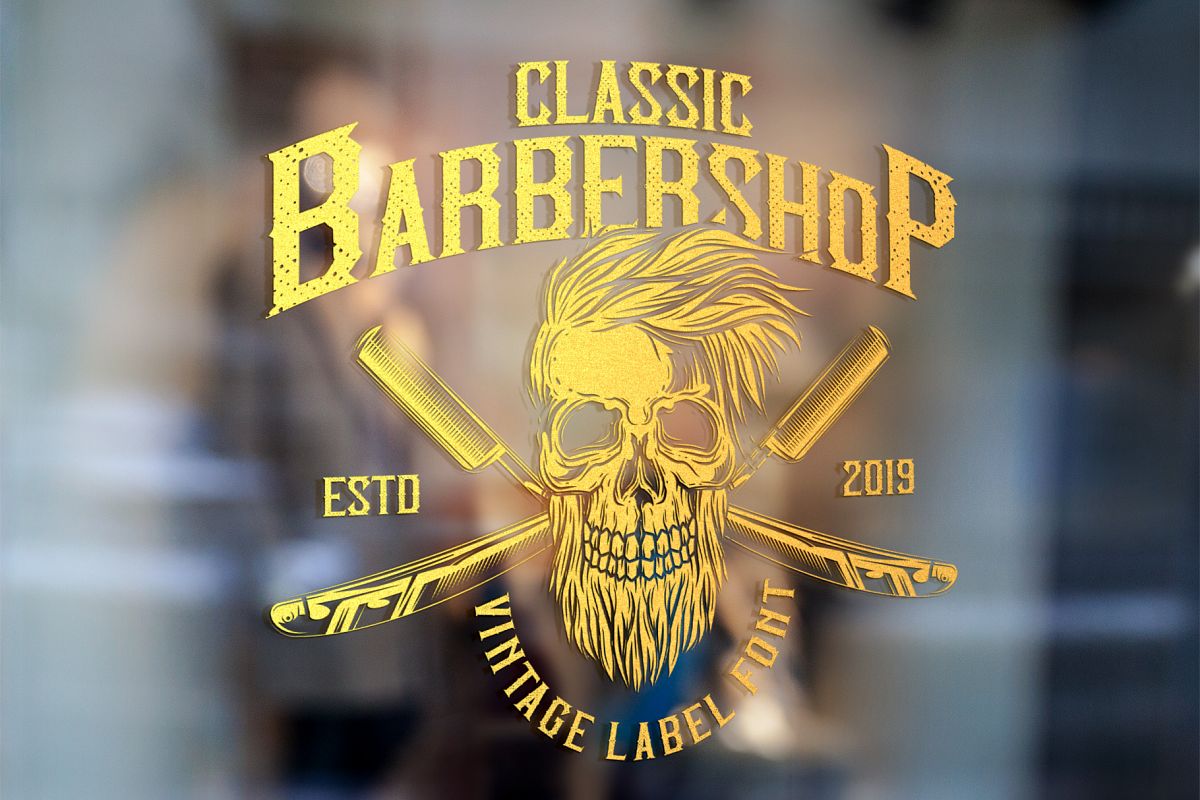
Introducing a vintage look label font named "Classic BarberShop". All available characters you can see at the screenshot. This font have 7 styles (including layered effect styles). This font will good viewed on any retro design like poster, t-shirt, label, logo etc.